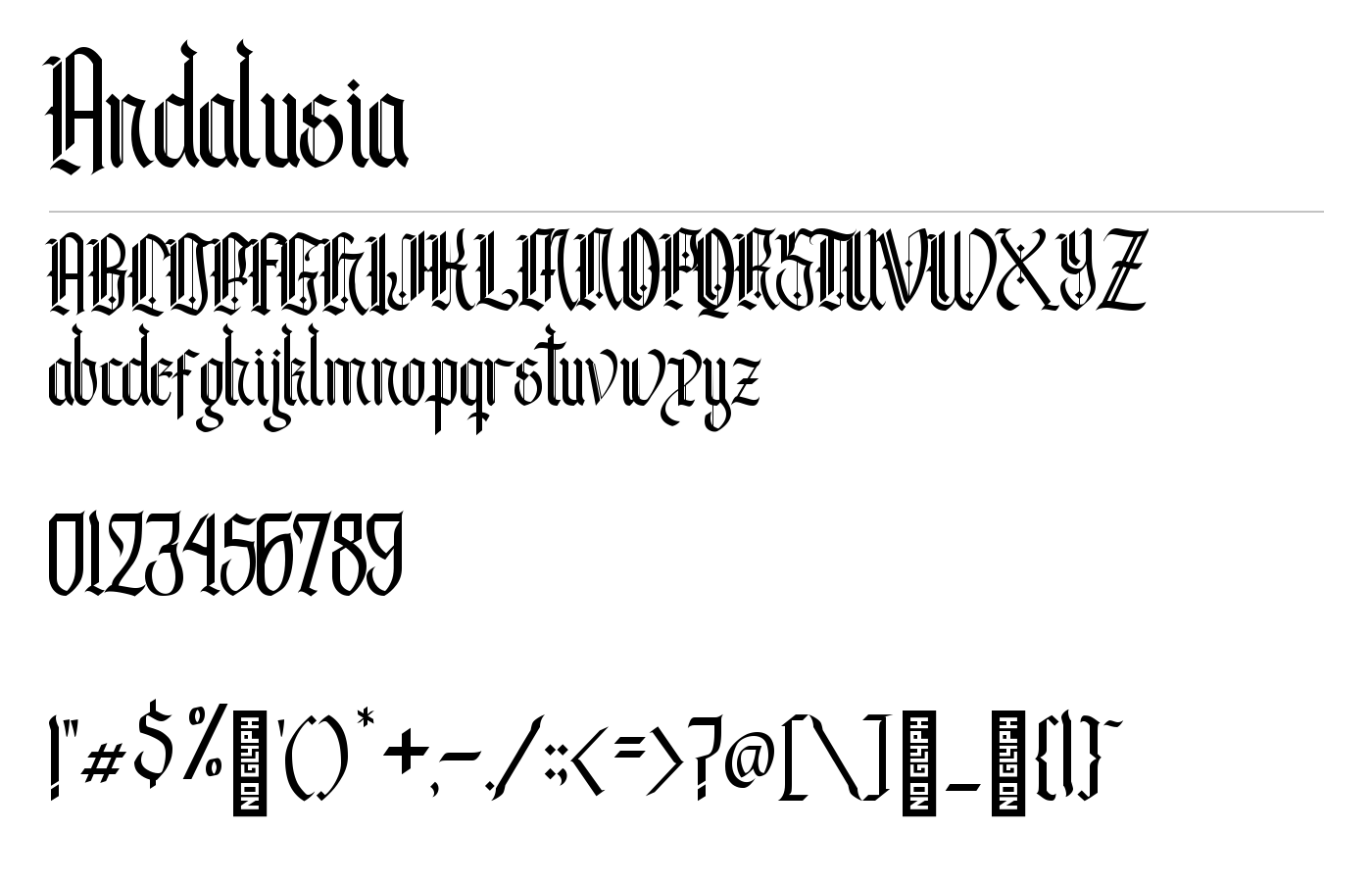
Andalusia is a striking blackletter serif font with sharp, angular strokes and a narrow, tall structure that evokes a strong Gothic and medieval feel. Its high contrast between thick and thin lines, along with intricate details and stylized letterforms, make it perfect for vintage, historical, or dramatic branding and display use, especially in logos, posters, or headings where an old-world elegance with a bold presence is desired.
Andalusia Font
About Andalusia Font
| Font family | Andalusia Font |
| Designer | Typotopia |